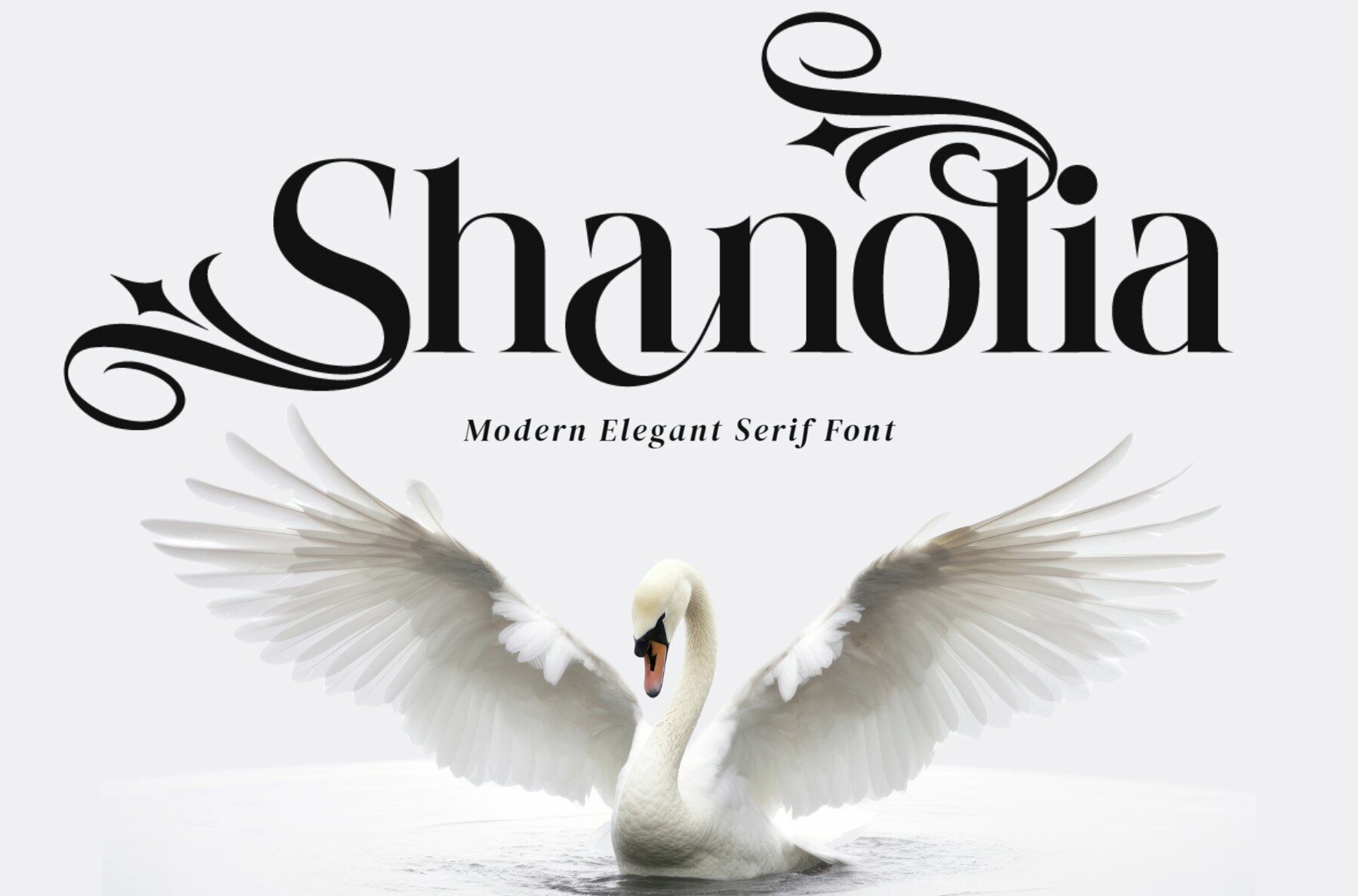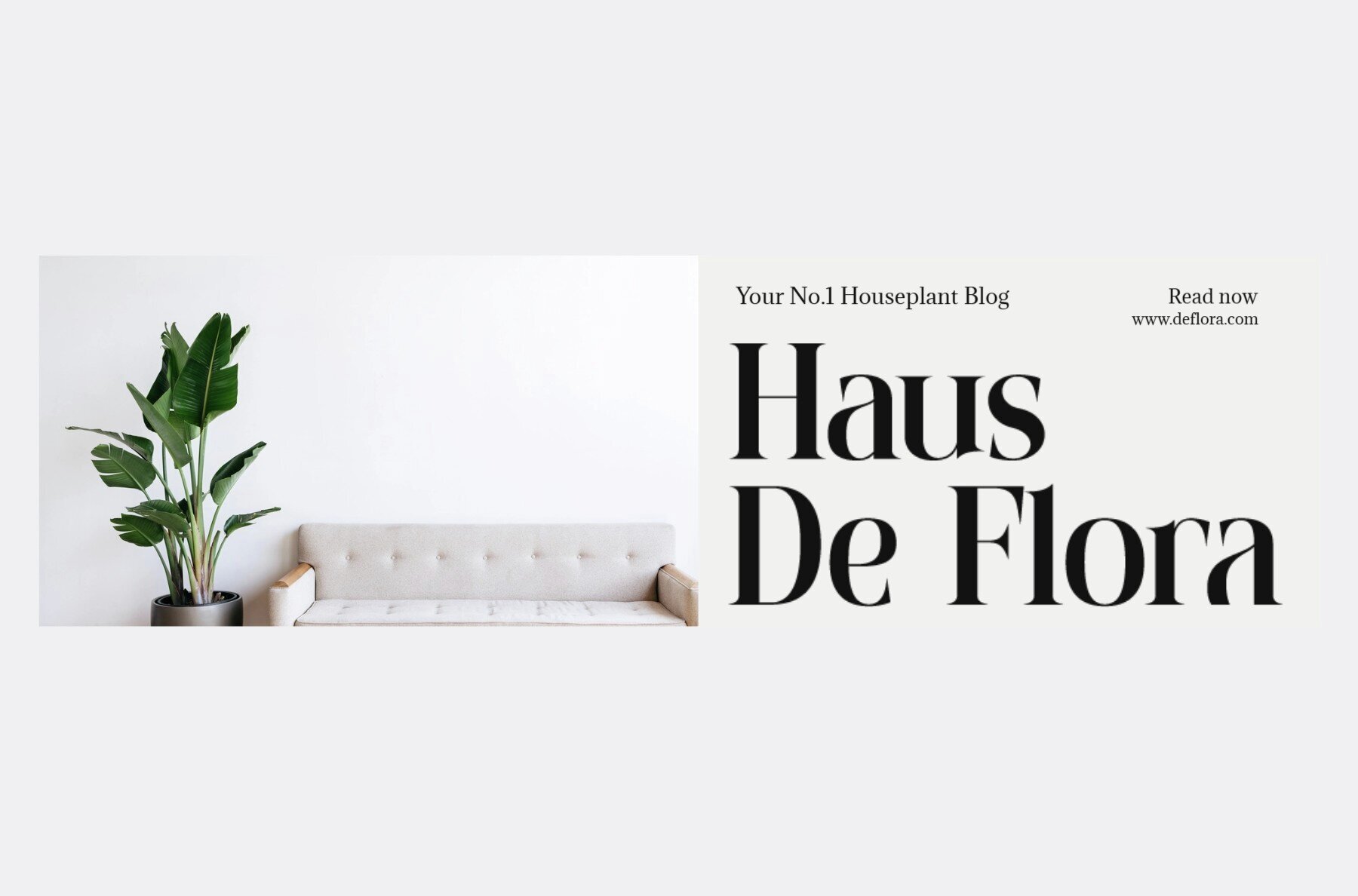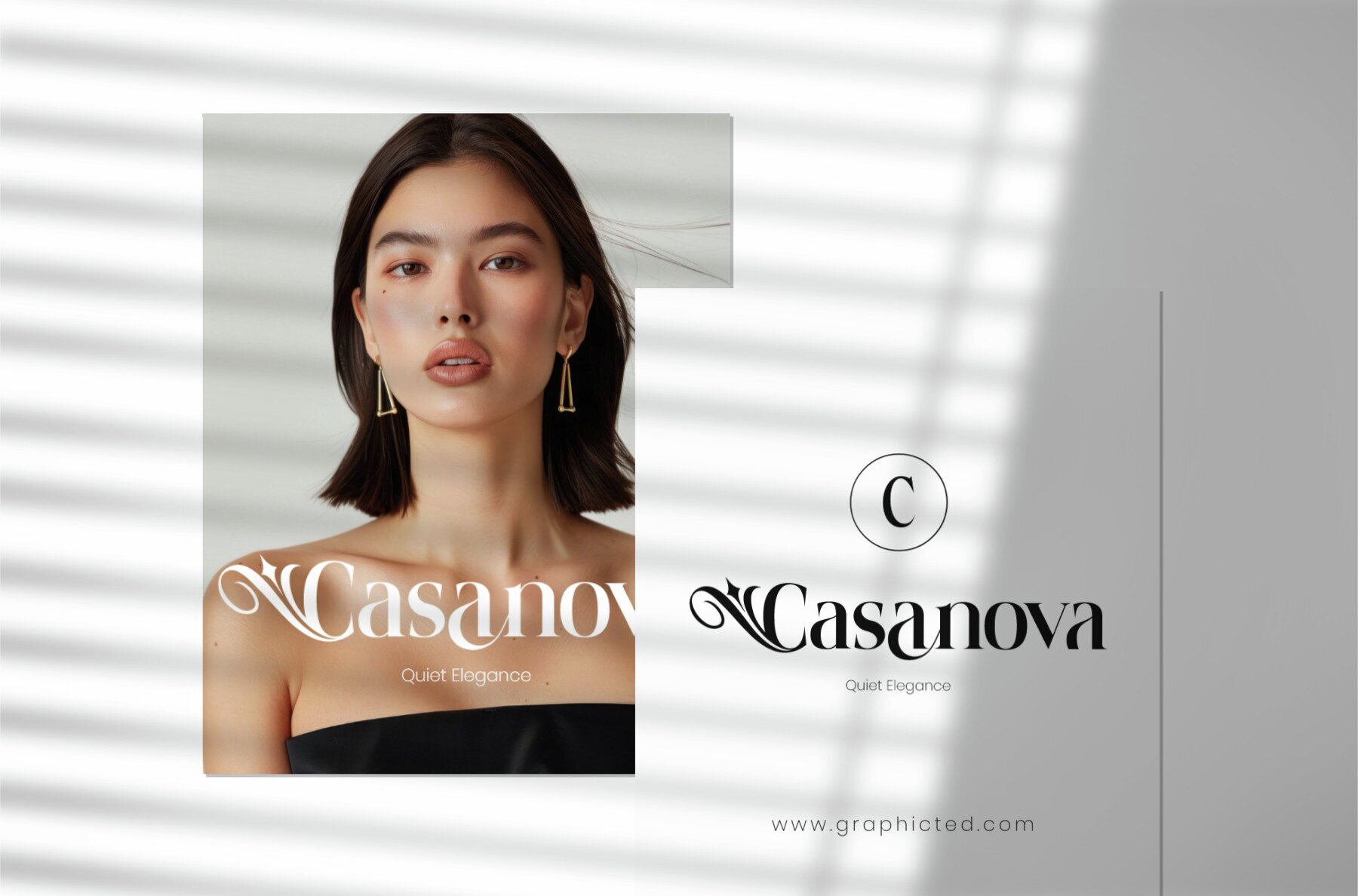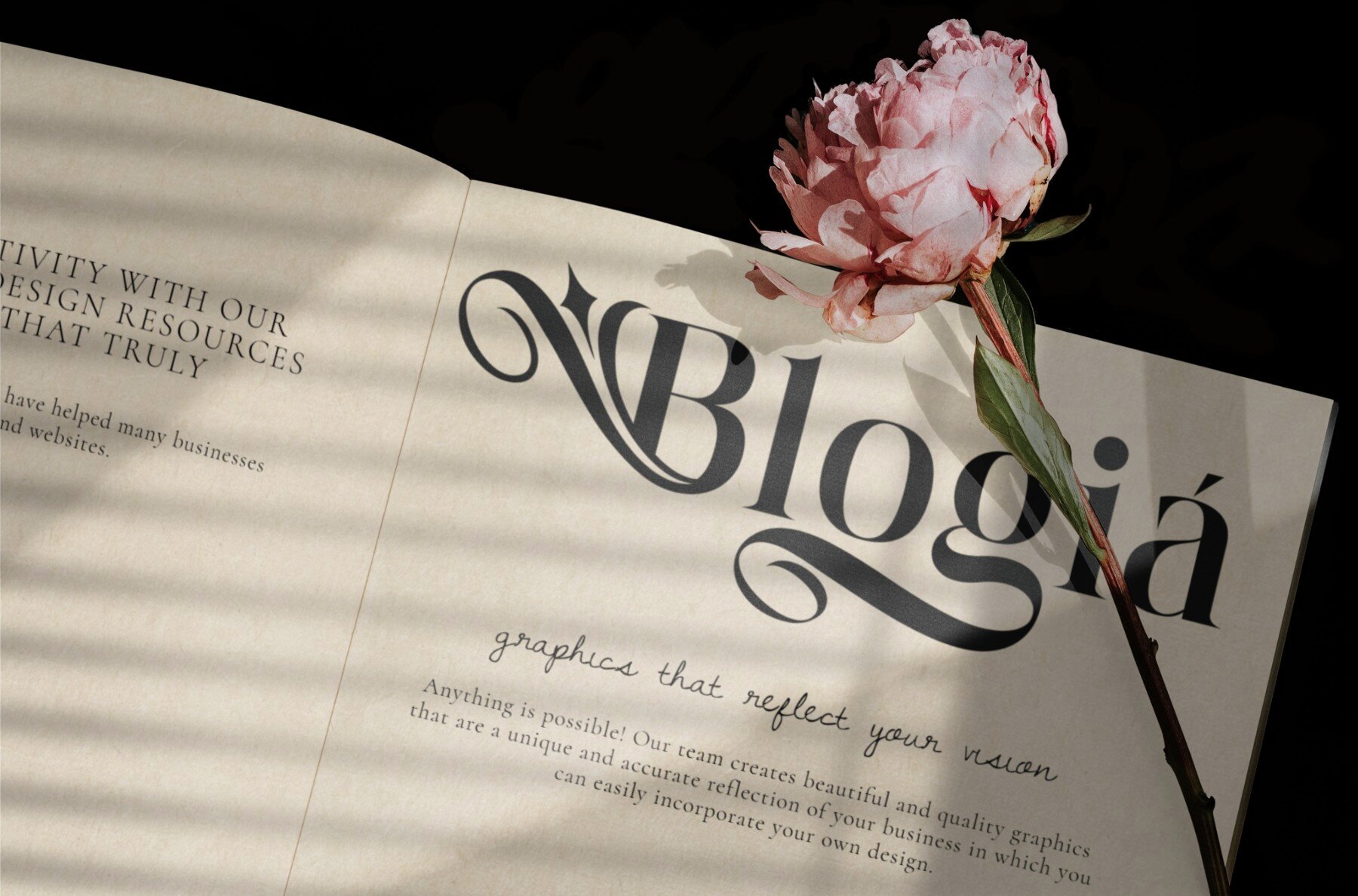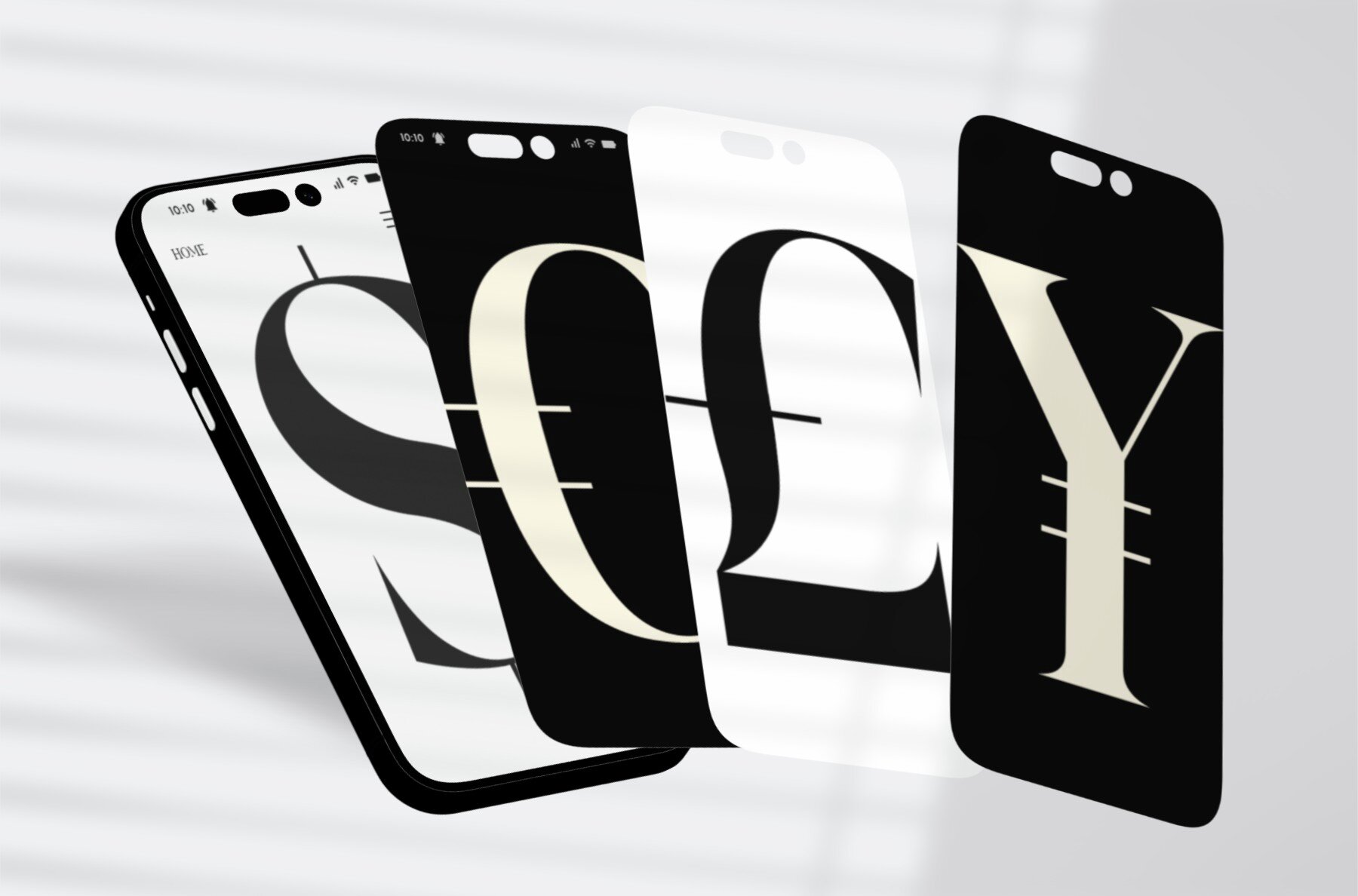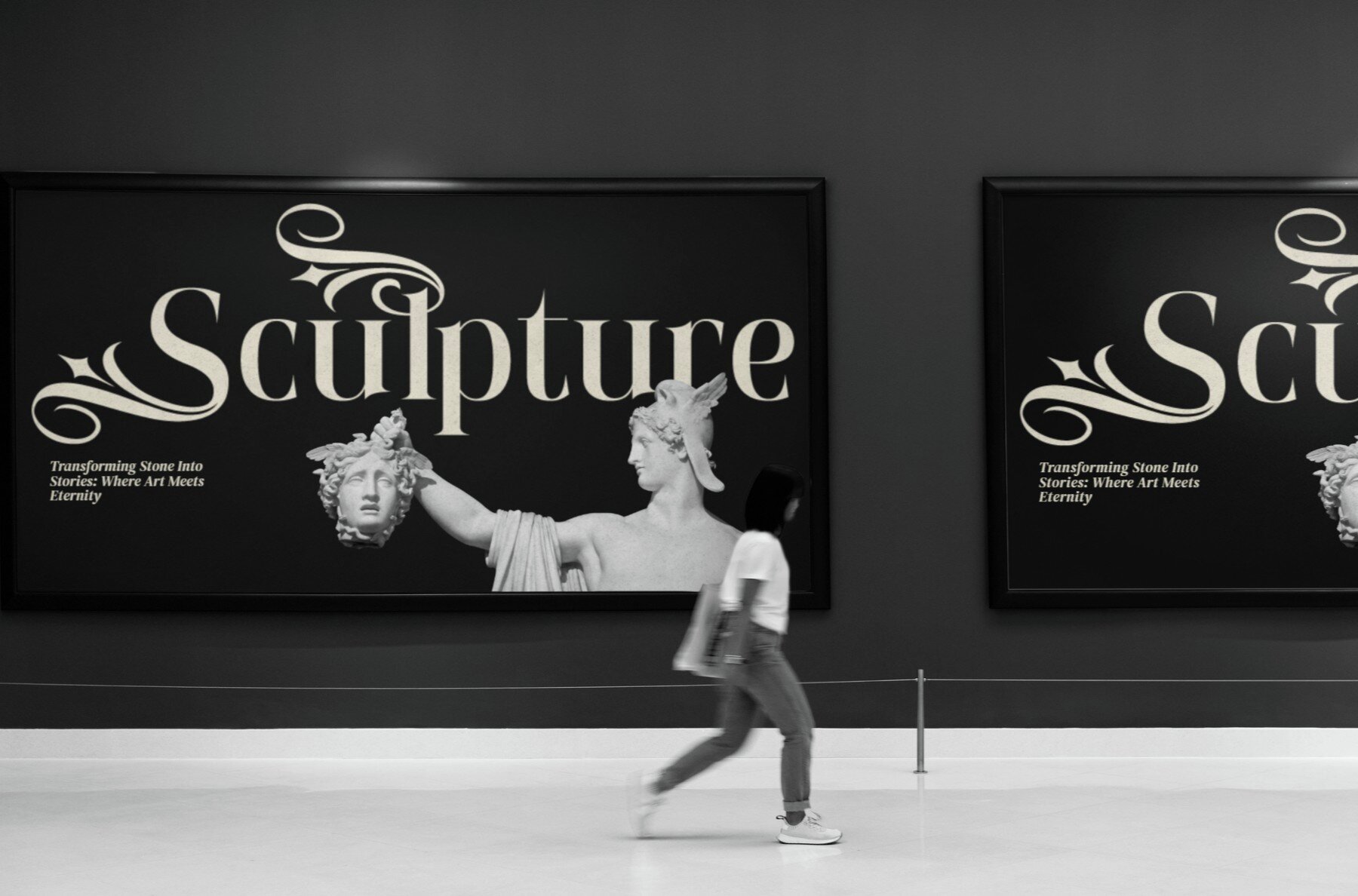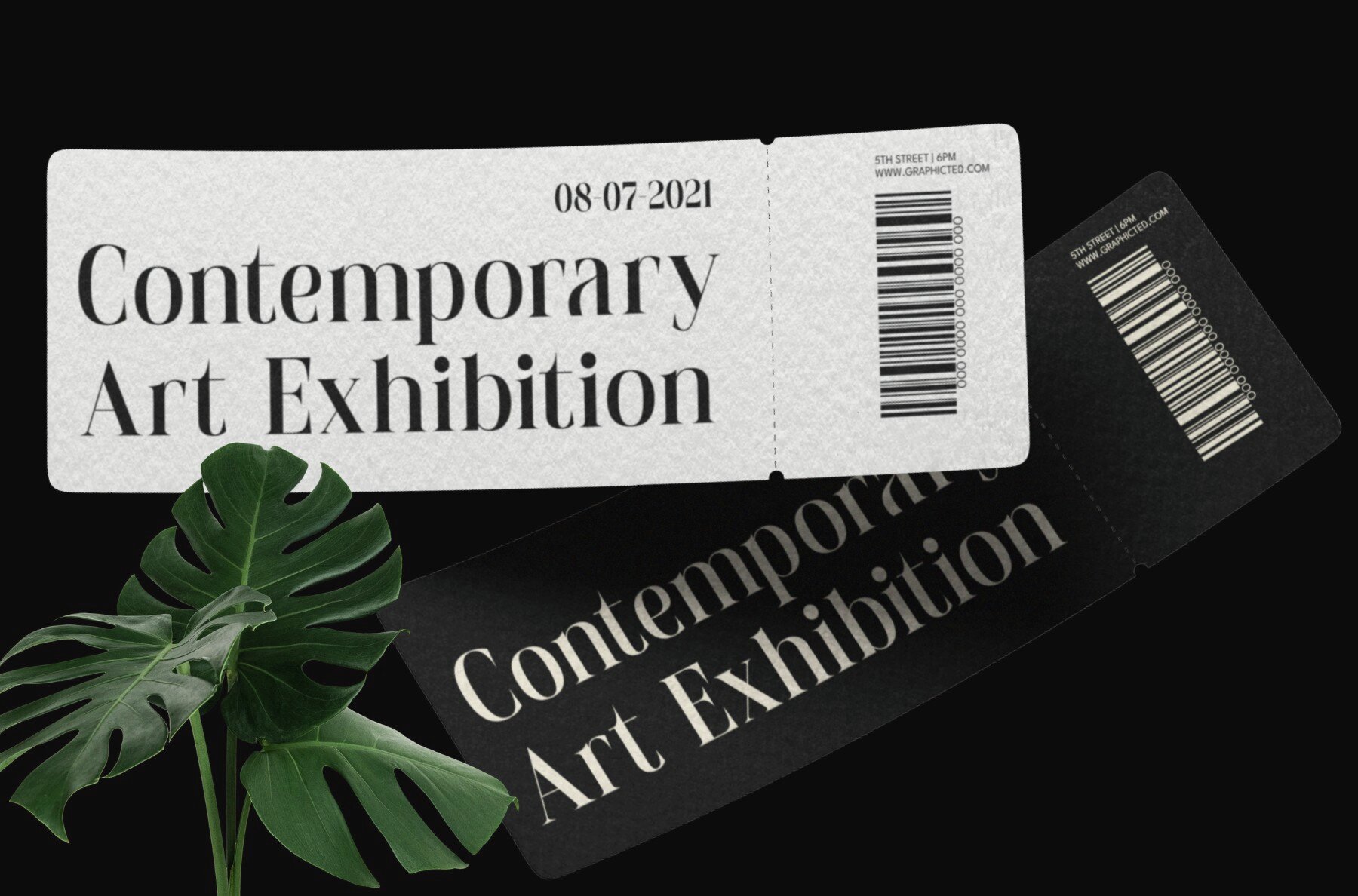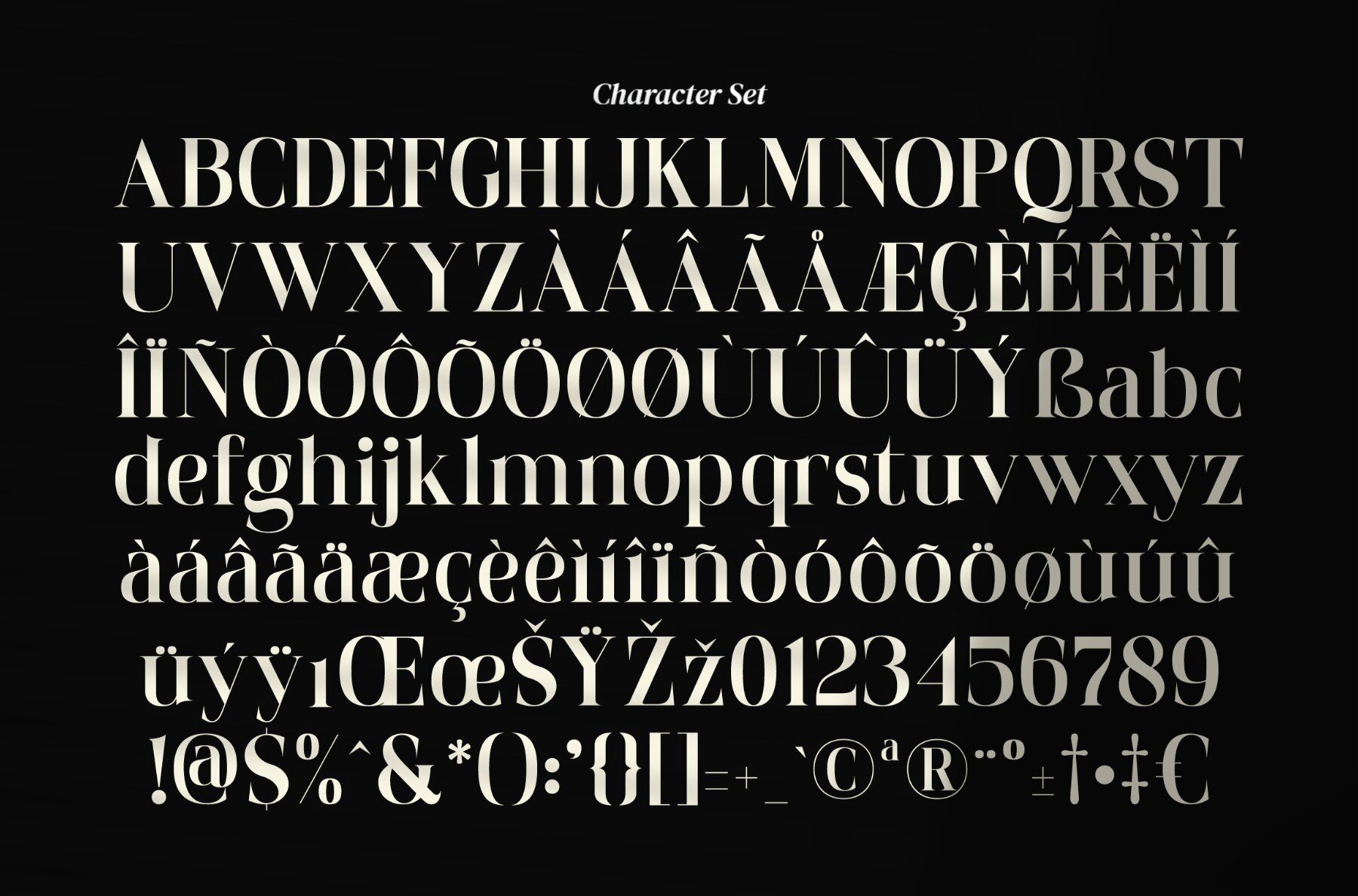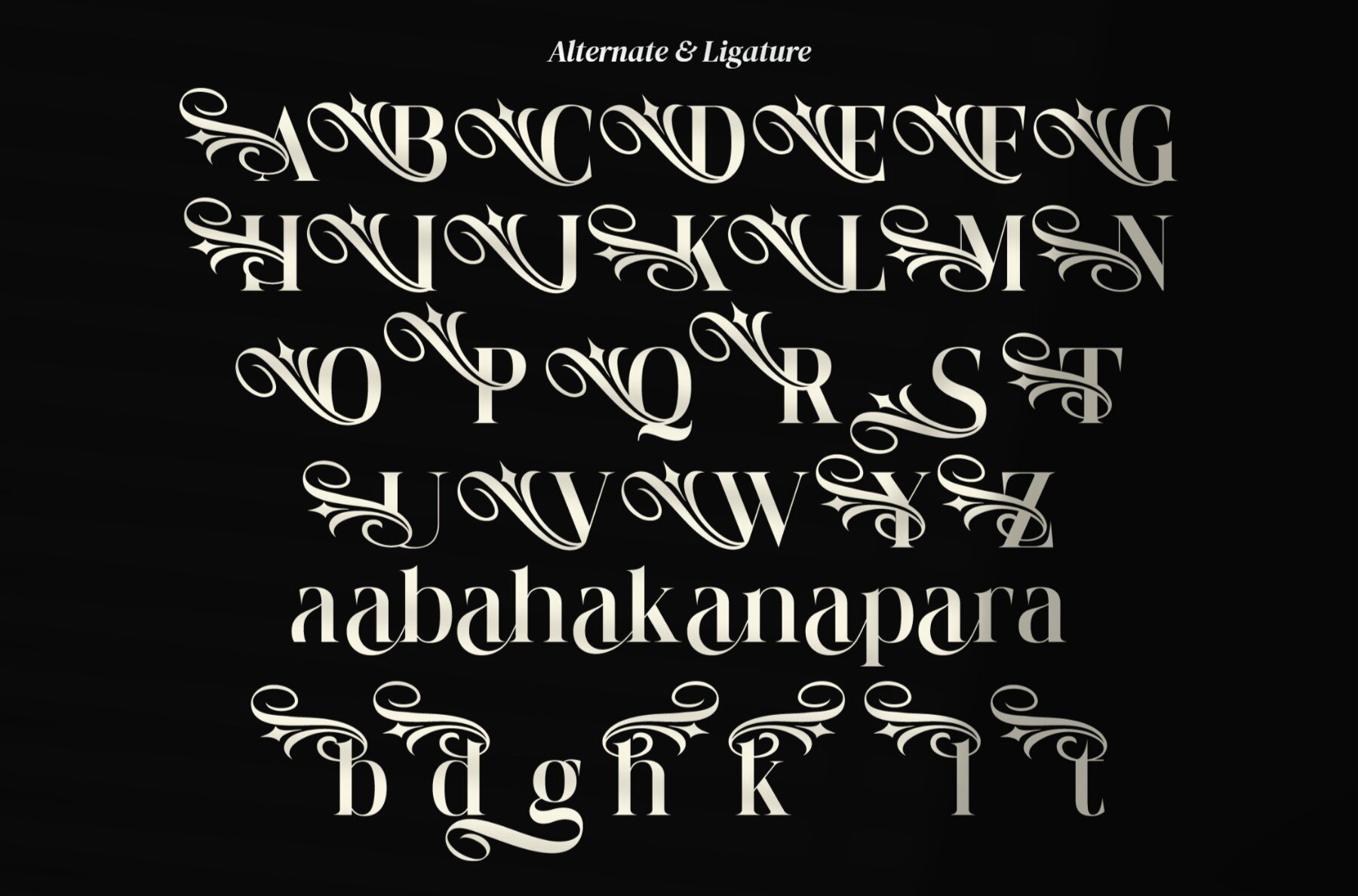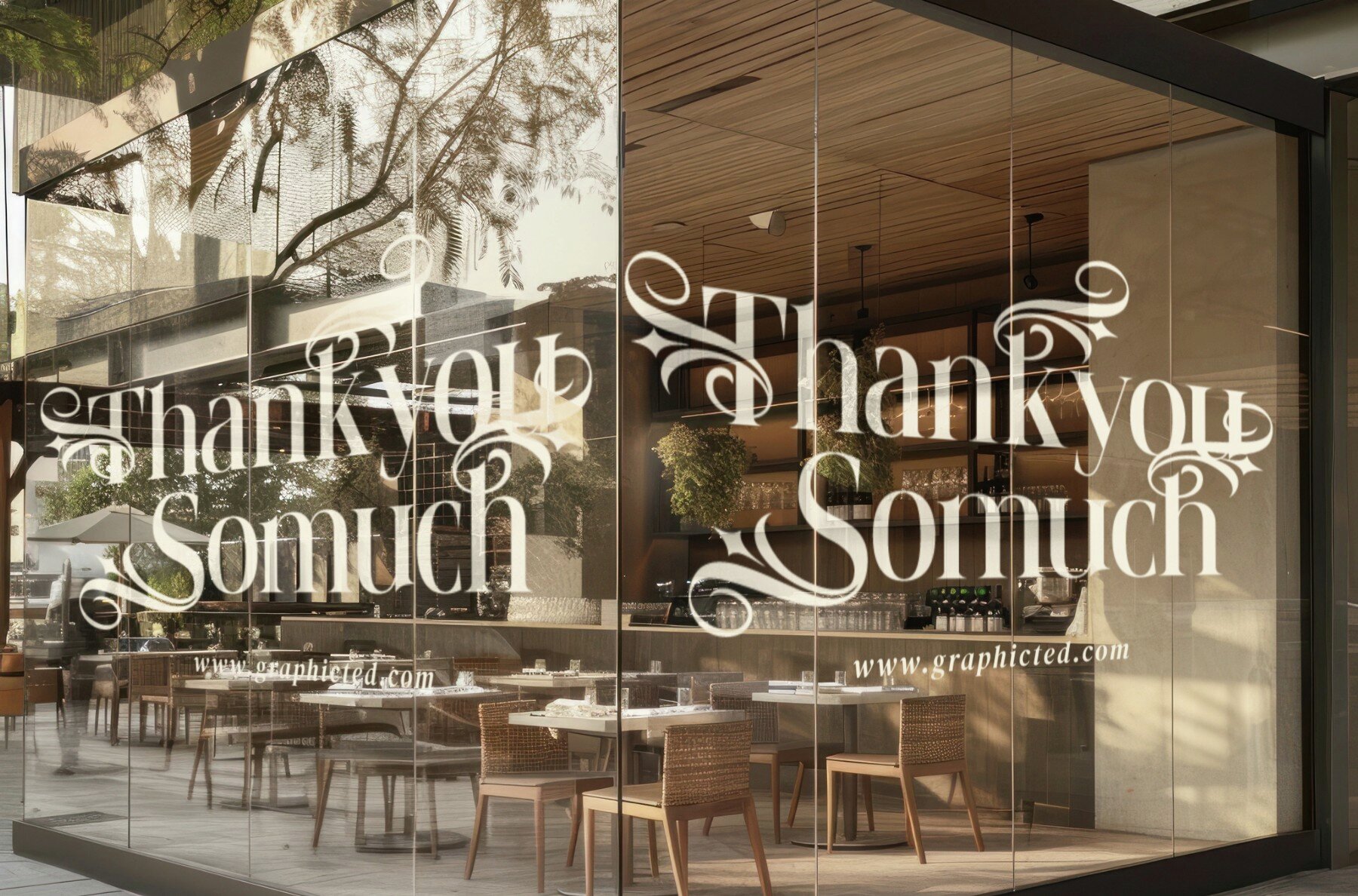
Shanolia Font
Shanolia Regular
Shanolia is a modern serif font that brings sophistication and grace to your design projects. Crafted for branding, wedding invitations, luxury packaging, and editorial designs, this font blends timeless elegance with contemporary details. Its intricate swashes and stylish curves make it perfect for designers seeking to create a memorable impact.
Shanolia's versatility shines whether paired with minimalist layouts or bold visuals, adapting seamlessly to a variety of design aesthetics. Its refined structure and elegant form make it an essential tool for any designer looking to add a touch of class and uniqueness to their projects.